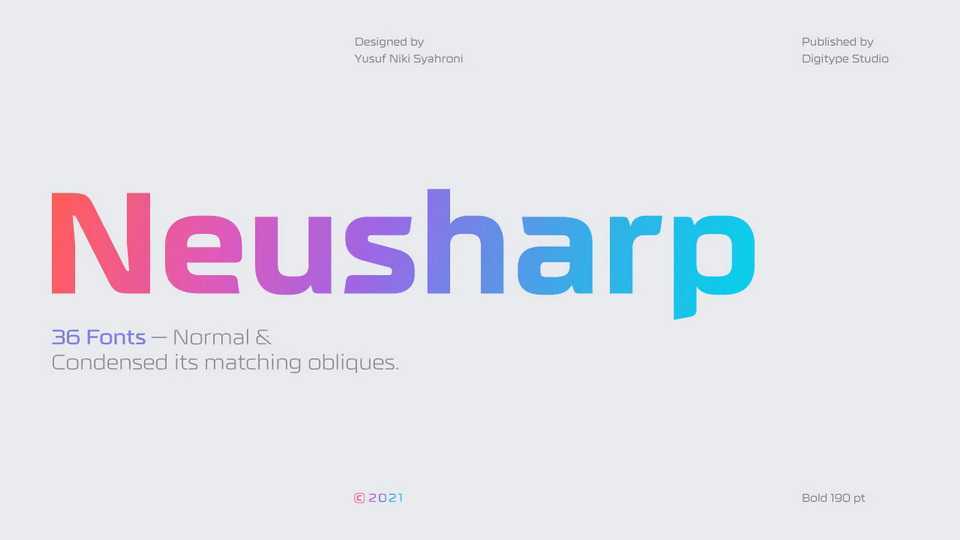
Download Neusharp font, a sans serif typeface with a sharp shape that is very impressive to have. Neusharp fonts are great for headlines and short paragraphs
Designer: Digitype Studio